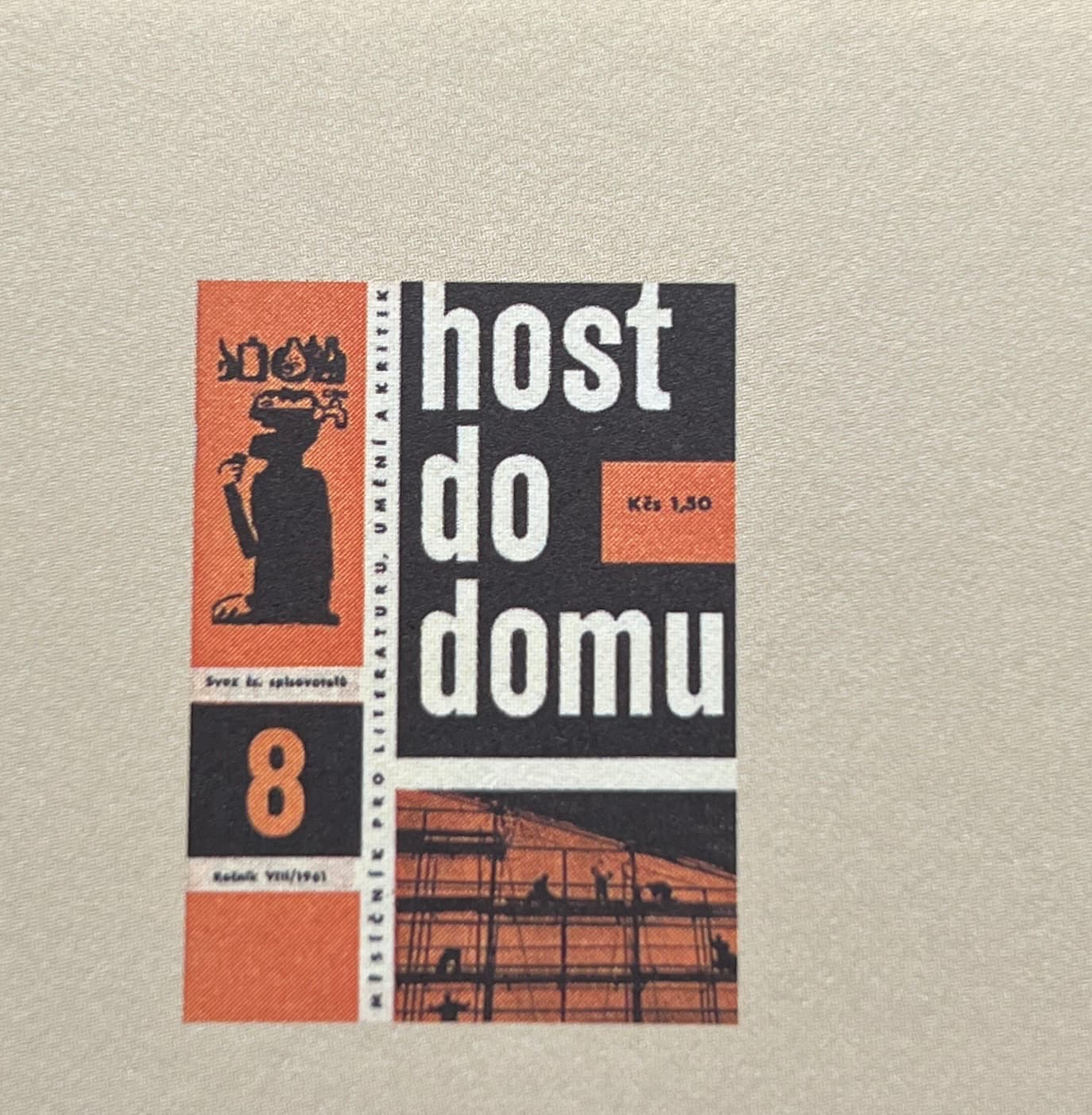
Hello there, I will really appreciate help with identification of this typeface from czechoslovakian book cover. Thank you!
Balboa Condensed is very close, but the dates aren’t right. Host Do Domu was published in the early 60s, but Balboa wasn’t released until 2001.